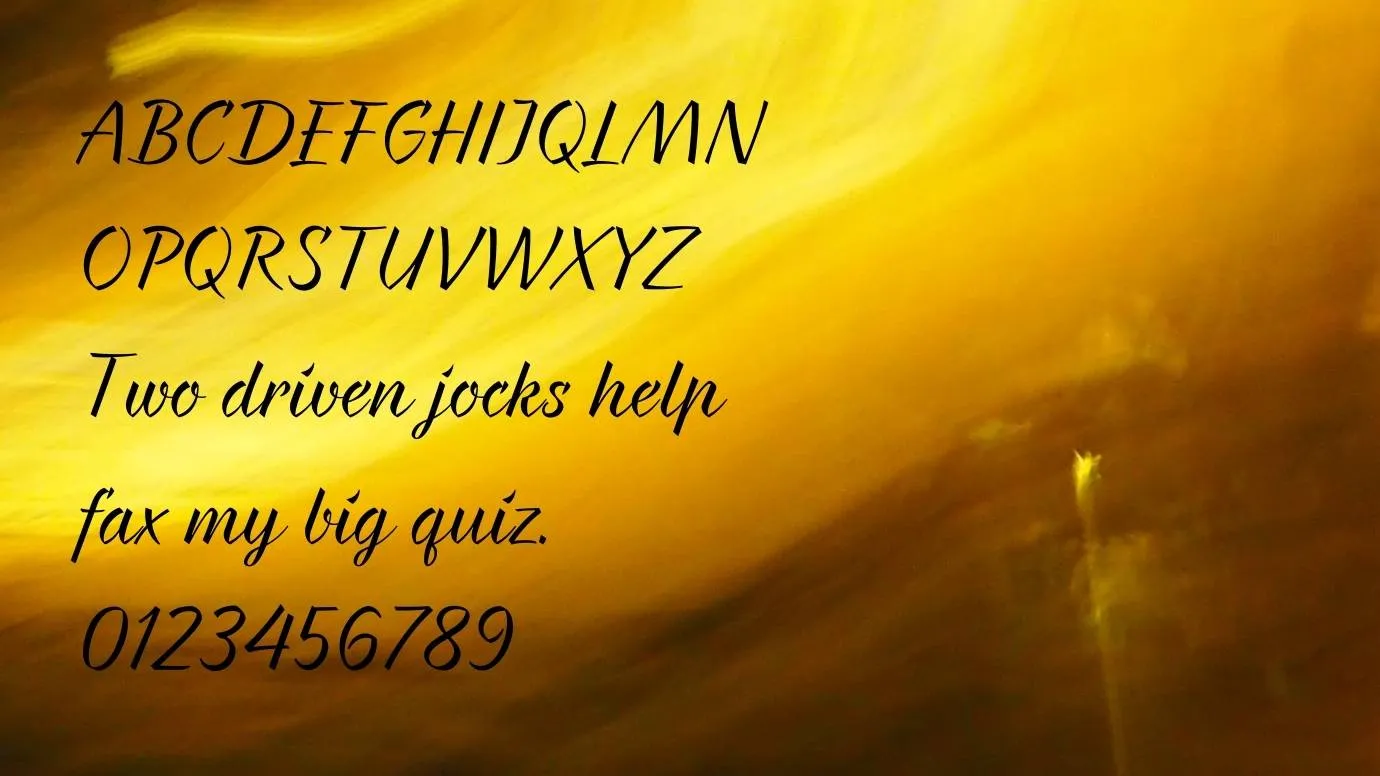
Baxton Font is a calligraphy font that has the most stylish and amazing font visualizations. This textured style has been utilized in many designs and projects by graphic designers. It is one of the most demanded font styles by designers. It has charming appealing characters that can easily attract the attention of the users. Many of the designers are also using this amazing font in their designs and projects.
This font style is also amazing to utilize in fashion magazines. Therefore, many fashion industries are utilizing this font to create texture content in their fashion magazines. You can also use this font to create amazing logo designs with this font that will make them attractive and eye-catchy. You can also make pair of this font with other typefaces. It can make the best pair with Core Sans Font. This font is also commonly used in design software such as Adobe Photoshop and CSS (Cascading Style Sheet).
This typeface is best for any form of graphic design or text design project. The font can be used for logo designs, signage and trade show displays, book covers, menus, posters. etc. Its bold characters can also be used for headlines on websites and blogs, as well as post descriptions, presentations, T-Shirt designs, quotes, etc. There’s also an online font maker. So, this tool provides you the access to create your designs online without letting you download and install this font on your computer and other devices.
Designer of Braxton Font
It has been created by the three well-known graphic and font designers named Evgeny Tkhorzhevsky, Vladivostok, and Russia. They have also designed a variety of fonts that are used in multiple designs.
This font texture is constructed with a wide family of its own. These styles are mentioned below: –
- Braxton Std Light
- Braxton Std Regular
- Braxton Std Book
- Braxton Std Bold
- Braxton Std Black
Each style of this family is comprised of capital letters, small letters, glyphs, punctuations, numbers, symbols, special characters, and many languages support.
View of Braxton Font
| Name | Braxton Font |
| Style | Calligraphy |
| Designer | Evgeny Tkhorzhevsky, Vladivostok, and Russia |
It can support up to 82 languages.
What Type of Font Is Braxton?
This typeface has the most stylish and attractive texture appearance. It is a Calligraphy font that is best for creative designs.
Can I Use This Font on My Website?
This font style has no shortage of usage. therefore this typeface can easily enhance the beauty of your designs and projects including websites.
What’s the Closest Font to Braxton?
There are some of the fonts that are very similar to this font style. But we have seen that Another Shabby font contains the most resemblance to this typeface.
Who designed Braxton Font?
It has been created by the three well-known graphic and font designers named Evgeny Tkhorzhevsky, Vladivostok, and Russia.